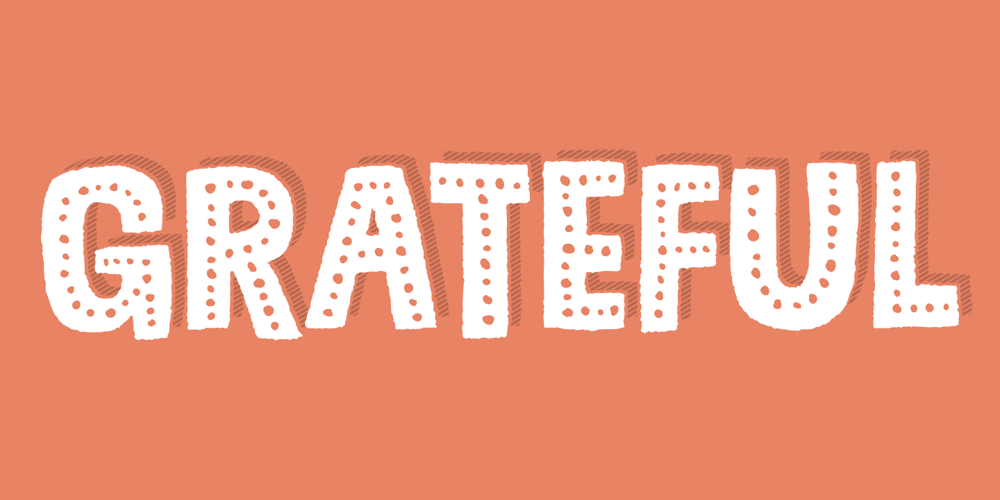
Grateful Font Family was designed by Jakob Fischer and published by PizzaDude.dk. Grateful contains 11 styles and family package options. Grateful is a font that comes in 11 different versions. Each and every font has got 5 different versions of each letter. All versions easily mix (see preview!) and I can’t count the many different possibilities…but there are MANY! 3 of these versions are “clean” (with straight lines and a cool 3D effect layer) whereas the other 8 has got some roughness, and works both as a top layer or a shadow – but the imagination is the only limitation!